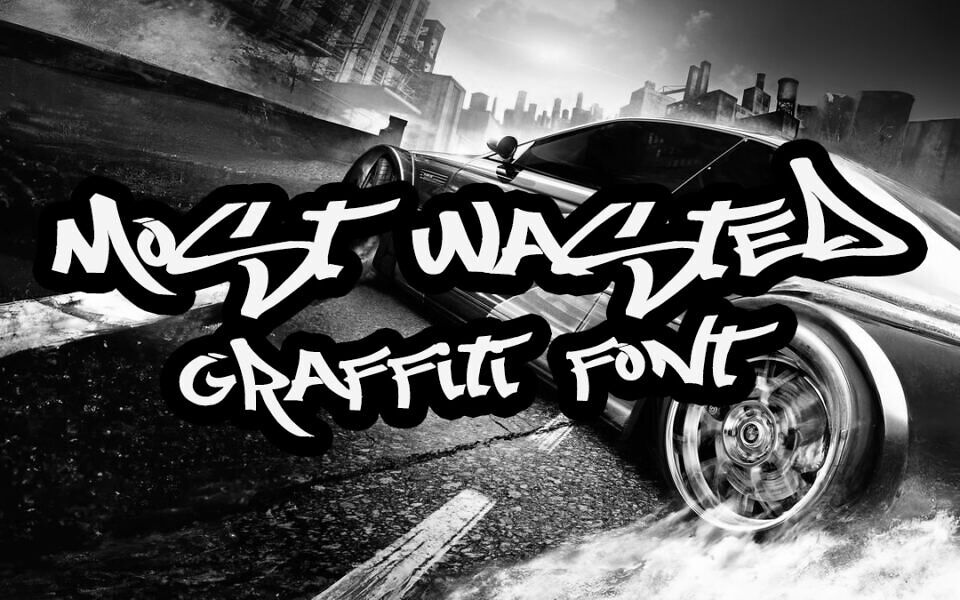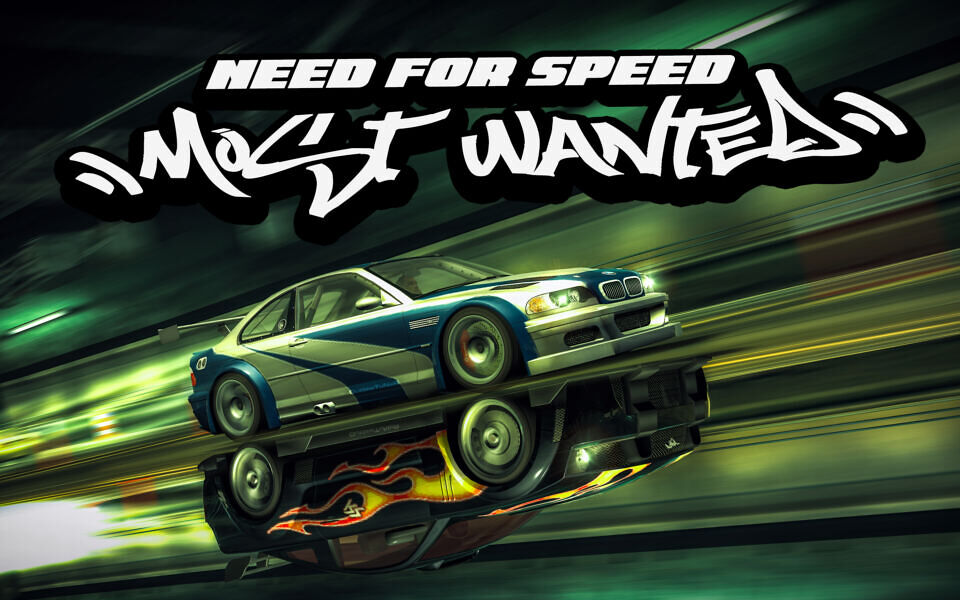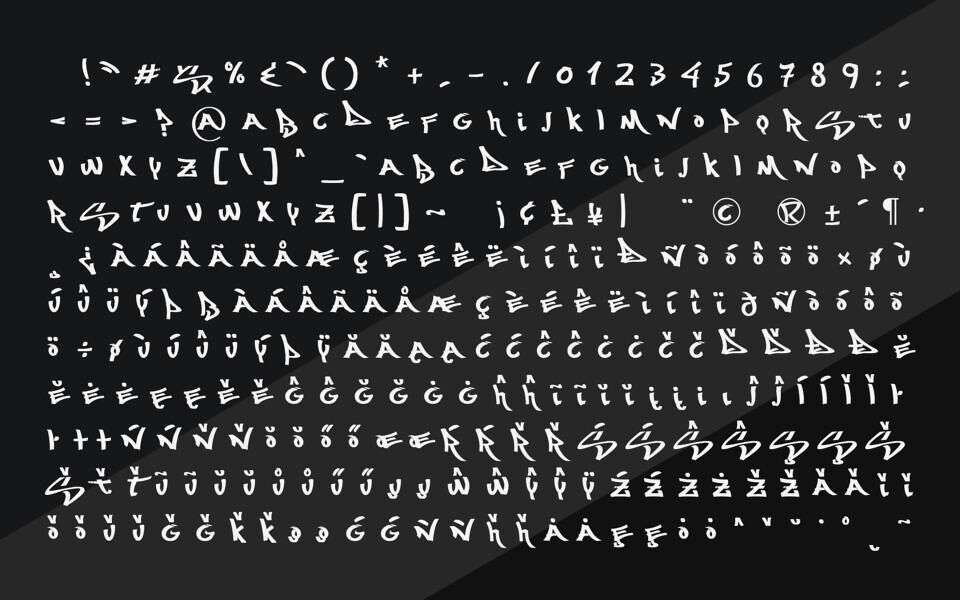
Most Wasted (Most Wazted) is a bold graffiti-style font inspired by the logo design of the racing game Need for Speed: Most Wanted (2005).
Featuring sharp strokes, energetic curves, and rebellious handwritten lettering, it captures the raw early-2000s underground vibe perfect for gaming graphics, posters, logos, album covers, and edgy branding projects. Its expressive style adds movement, attitude, and street culture energy to any design.